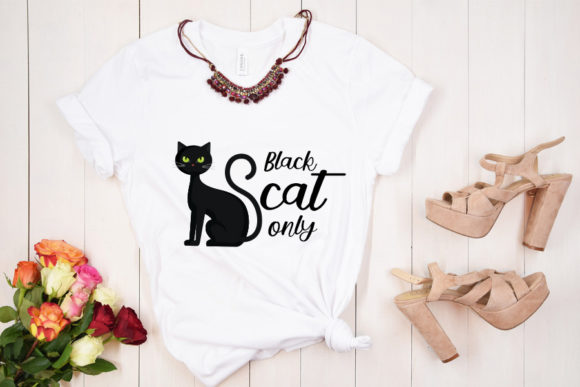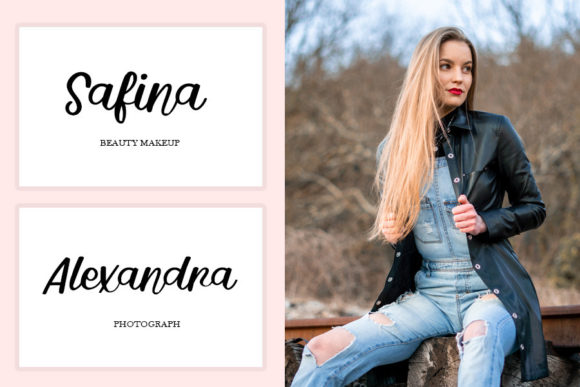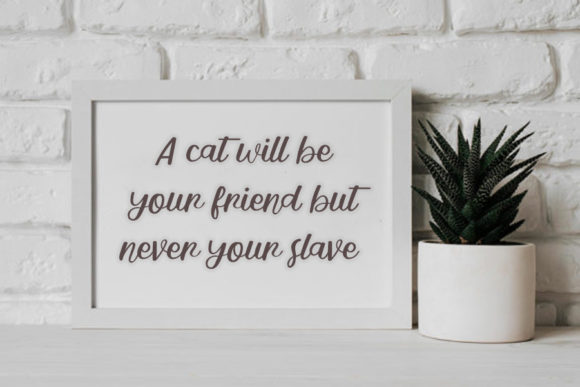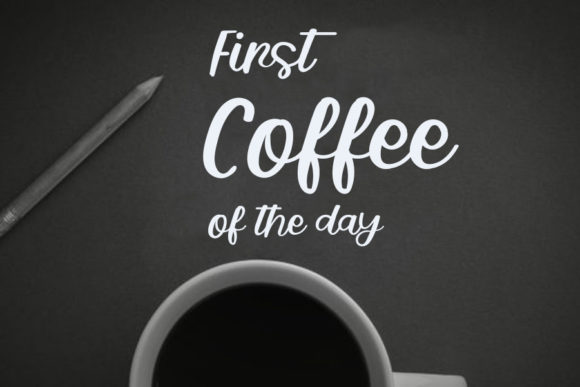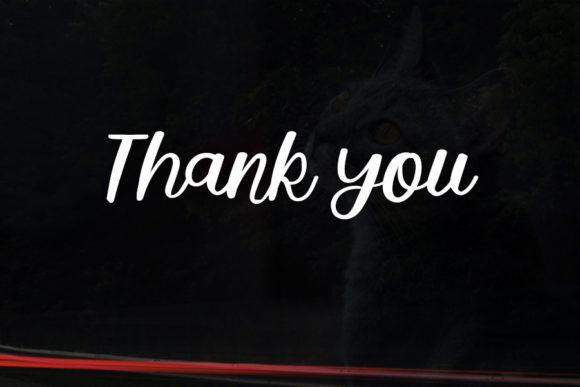
Introducing Blackcats Font: The Purrfect Addition to Your Design Arsenal
Are you tired of using the same old fonts in your designs? Look no further than Blackcats Font, a cute and trendy handwritten font that’s sure to take your creations to the next level. With its natural and unique style, Blackcats Font is incredibly versatile and can be used in a wide range of designs, from playful and whimsical to sophisticated and elegant.
The Characteristics of Blackcats Font
So, what makes Blackcats Font so special? For starters, its handwritten style gives it a personal and organic feel that’s hard to replicate with more traditional fonts. The natural flow and imperfections of the handwriting process make Blackcats Font feel more approachable and relatable, perfect for designs that need a touch of warmth and personality.
Another key feature of Blackcats Font is its uniqueness. Unlike more generic fonts that can feel bland and uninspired, Blackcats Font has a distinct character that sets it apart from the crowd. Its unusual letterforms and quirky charm make it a great choice for designers who want to add a bit of flair to their work.
The Benefits of Using Blackcats Font
So, why should you choose Blackcats Font for your next design project? For one, its versatility makes it an incredibly valuable addition to your font library. Whether you’re working on a logo, a poster, a website, or a craft project, Blackcats Font can help you create a look that’s both eye-catching and on-trend.
Another benefit of Blackcats Font is its ability to evoke emotions and create a connection with your audience. The font’s playful and whimsical style makes it perfect for designs that need to feel friendly and approachable, while its more elegant and refined moments make it suitable for projects that require a touch of sophistication.
Using Blackcats Font in Your Designs
To get the most out of Blackcats Font, try experimenting with different design elements, such as colors, textures, and patterns. The font’s natural style makes it a great choice for pairing with more organic and handmade elements, while its bold and expressive letterforms can hold their own against more graphic and geometric backgrounds.
Blackcats Font in the World of Crafting
Blackcats Font isn’t just for digital designers – it’s also a great addition to any crafter’s toolkit. Whether you’re working on a handmade card, a scrapbooking project, or a DIY home decor item, Blackcats Font can help you add a personal touch to your work.
The font’s handwritten style makes it perfect for creating personalized gifts, such as customized mugs, t-shirts, and tote bags. You can also use Blackcats Font to add a decorative touch to your journaling and planner pages, or to create beautiful and unique handmade cards and invitations.
In conclusion, Blackcats Font is a versatile and trendy handwritten font that’s perfect for designers and crafters alike. Its natural and unique style makes it incredibly fitting to a large pool of designs, and its ease of use makes it accessible to creatives of all skill levels. Whether you’re looking to add a touch of whimsy to your digital designs or a personal touch to your handmade crafts, Blackcats Font is the purrfect addition to your creative arsenal. So why wait? Download Blackcats Font today and let your imagination run wild!